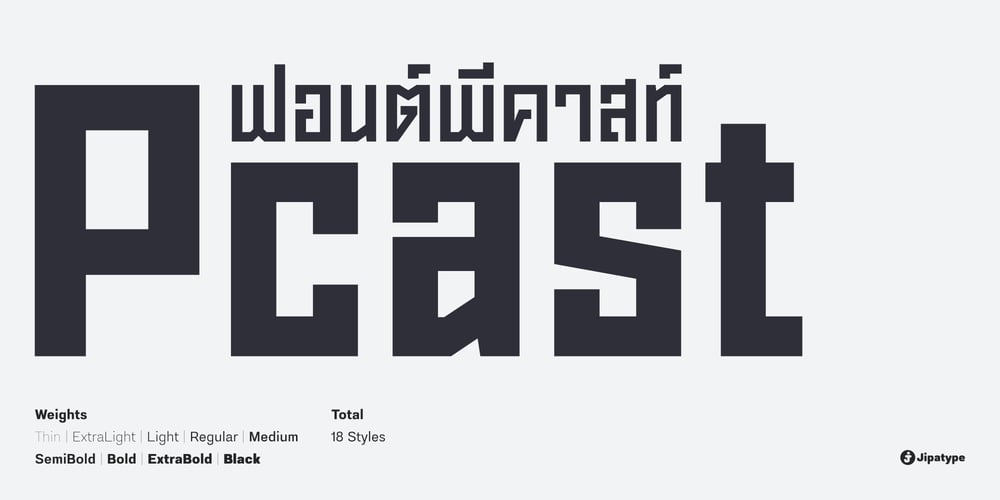
Pcast
Pcast font
Pcast Font Family was designed by Anupap Jaichumnan and published by Jipatype. Pcast contains 18 styles and family package options. Start with the basic shapes that almost every design program has. That is, the square is like a finished material. Can be arranged, rotated to get the desired typeface easily.